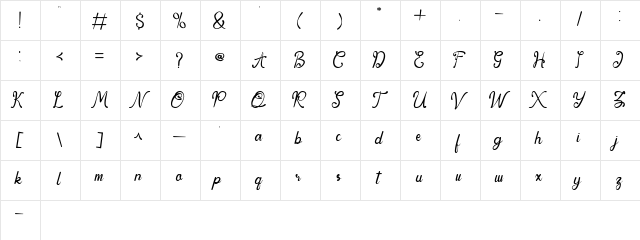
bulgatin Regular
| Designer | Muksal Creative. 2019 |
Design Context for bulgatin Typeface
bulgatin is a composed and adaptable typeface that performs quietly and consistently across a wide range of design contexts.